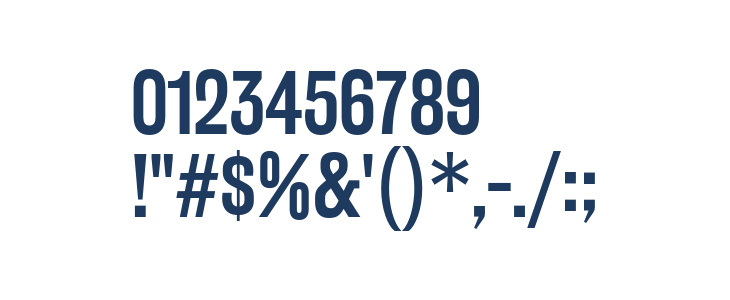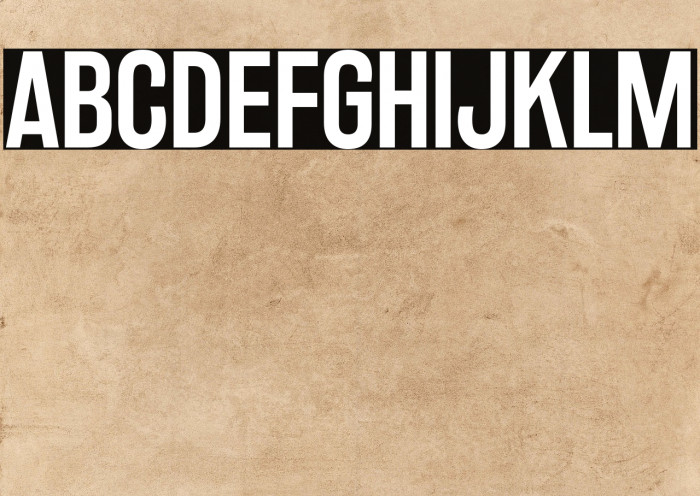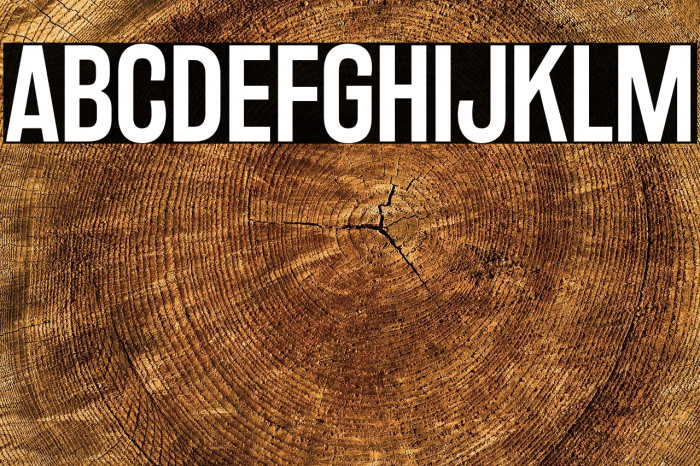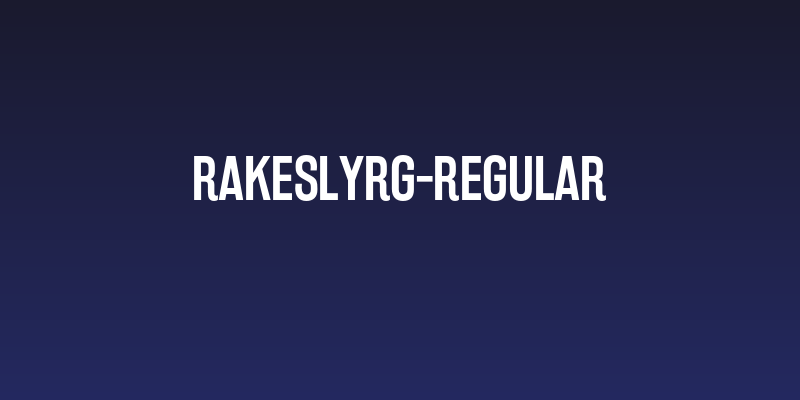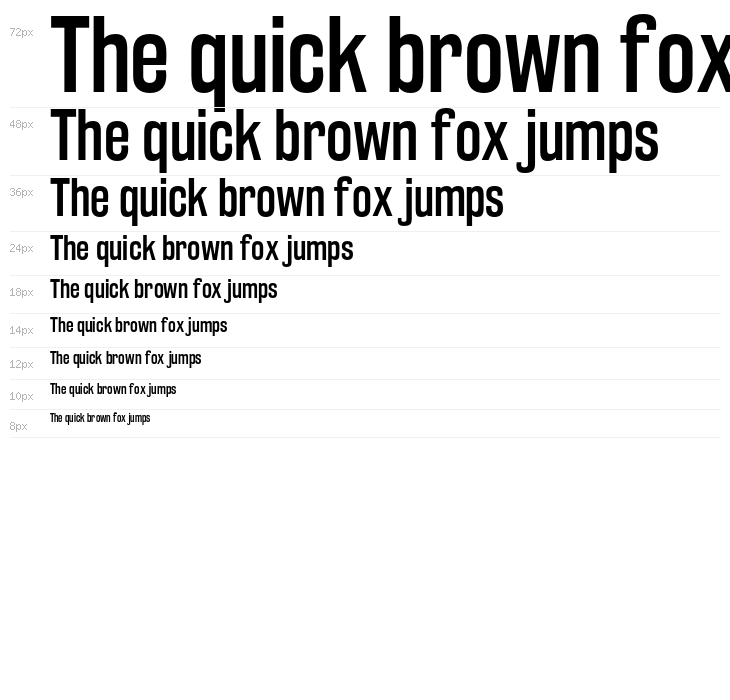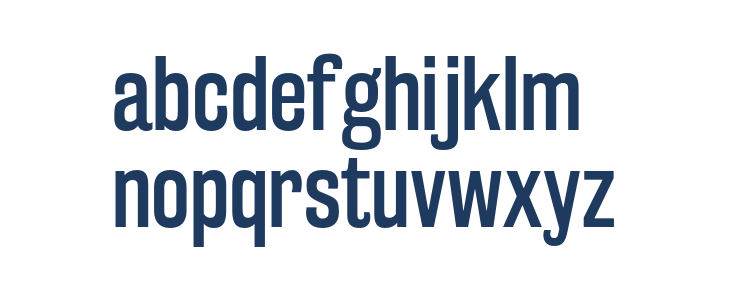
RakeslyRg-Regular Font
RakeslyRg-Regular Description
This font exhibits a bold and modern sans-serif style, characterized by its clean lines and uniform stroke width. The uppercase and lowercase letters maintain a consistent height, contributing to a cohesive and structured appearance. The numerals are clear and legible, making them suitable for various applications. Special characters are well-defined, enhancing the font's versatility. The overall design is straightforward yet impactful, making it ideal for projects that require a strong visual presence.